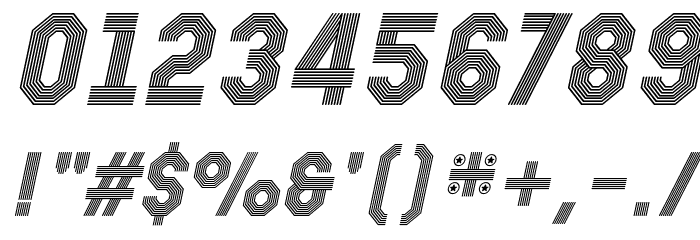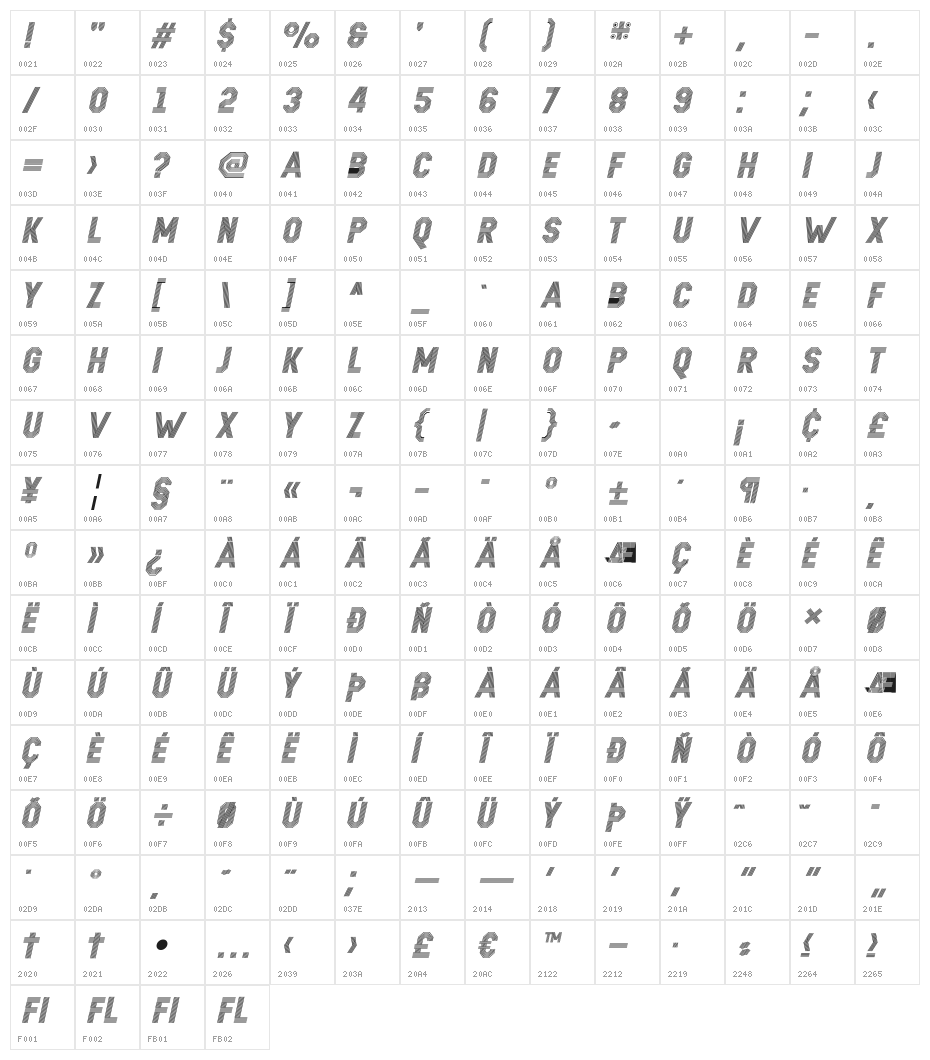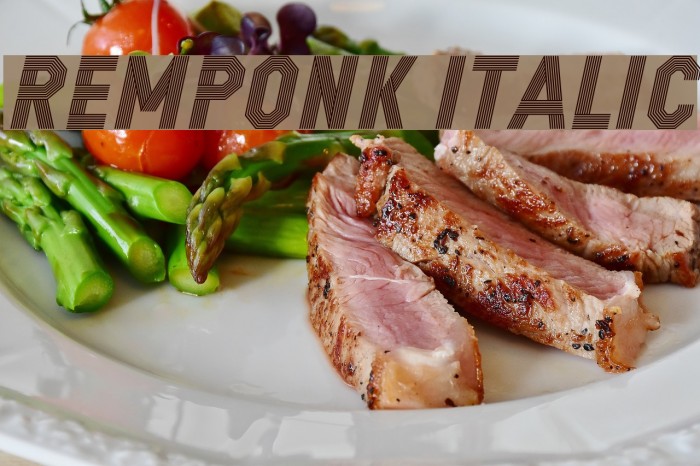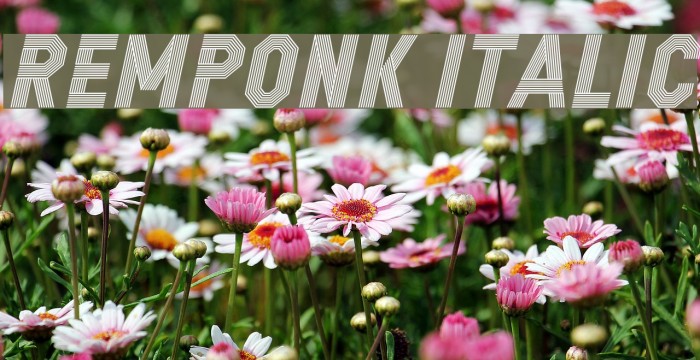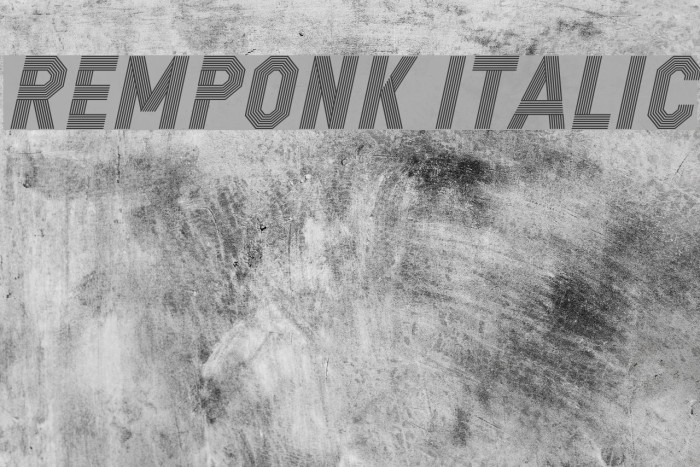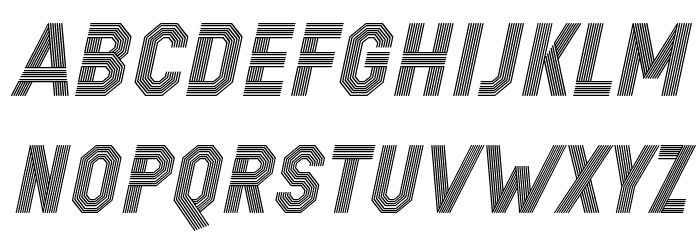
REMPONK Italic Font
REMPONK Italic Description
This font features a unique, decorative style characterized by multiple parallel lines forming each character, creating a sense of depth and movement. The italic slant adds a dynamic feel, making it stand out in any design. The uppercase letters are bold and striking, while the lowercase letters maintain the same intricate line pattern. Numbers and special characters are equally detailed, ensuring consistency across all elements. This font is perfect for projects that require a modern and edgy look, with its high contrast and distinctive appearance.
| Proposed Projects | Ideal for branding, posters, album covers, and any design needing a bold, modern aesthetic. |